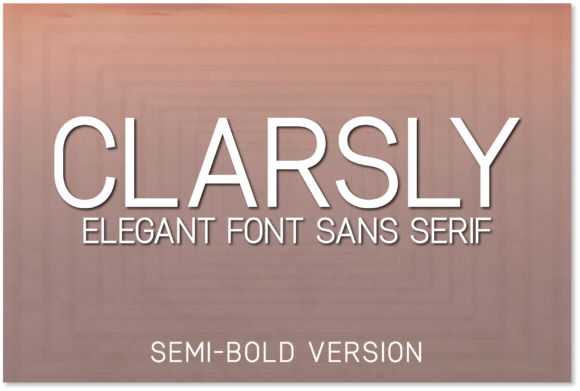
Discover the Timeless Touch of Clarsly Semi-Bold Font
As designers, we’ve all been there – staring at a blank canvas, trying to conjure up the perfect font to bring our vision to life. It’s that moment of pure creative bliss when everything falls into place, and the words start flowing. And that’s exactly what happened when we stumbled upon Clarsly Semi-Bold Font – a minimalist and modern sans serif font that effortlessly elevates any design.
Whether you’re working on a high-end branding project or a simple blog post, Clarsly Semi-Bold Font is the perfect addition to your design arsenal. Its versatility and elegance make it a go-to choice for body text, headlines, and everything in between. And the best part? It’s guaranteed to add a timeless touch to your next design, making it a valuable asset for any designer looking to elevate their work.
Clarsly Semi-Bold Font Features
- Font Family: Clarsly Semi-Bold, a sans-serif typeface designed for clear readability.
- Unique Characteristics: Clarsly Semi-Bold features a balanced mix of x-height, contrast, and letter spacing, resulting in improved readability and visual appeal.
Clarsly Semi-Bold Font Review
Overall, I think Clarsly Semi-Bold is a solid choice for a sans-serif font. Here are some things that work well: ✨
- It’s clean and modern, making it perfect for digital products and websites.
- The semi-bold weight is great for headings and titles, adding a touch of sophistication.
- The font is highly legible, even at smaller sizes, making it a great choice for body text.
- It’s fully supported by most operating systems and browsers, ensuring a consistent look across devices.
However, there are some limitations: ⚠️
- The font may not be as unique or distinctive as some other sans-serif fonts on the market.
- It may not be the best choice for more creative or artistic projects, where a more expressive font is needed.
- The font family is relatively small, so you may need to use a different font for smaller text sizes.
Overall, I’d give Clarsly Semi-Bold 4 out of 5 stars. It’s a reliable, clean, and modern font that’s perfect for most digital projects. While it may not be the most exciting or unique font, it gets the job done and looks great doing it.
Getting the Most Out of Clarsly Semi-Bold Font
Use Clarsly Semi-Bold Font to add a touch of sophistication to your designs. It’s perfect for:
Headings and titles
Body text in formal documents
Brand identities and logos
Remember to pair Clarsly Semi-Bold Font with a complementary font to create a visually appealing design.
Alternatives to Clarsly Semi-Bold Font
Lato Semi-Bold
Lato Semi-Bold is a modern sans-serif font that is highly legible and versatile. It’s ideal for use in digital products, such as websites, apps, and e-books. Lato Semi-Bold is more rounded and friendly compared to Clarsly Semi-Bold, making it suitable for content-heavy designs.
Comparison: Lato Semi-Bold has a slightly more rounded and friendly feel, whereas Clarsly Semi-Bold has a more geometric and modern look.
Montserrat Semi-Bold
Montserrat Semi-Bold is a strong and modern sans-serif font that is well-suited for use in urban and industrial settings. It’s ideal for use in logos, headings, and titles. Montserrat Semi-Bold is more condensed and geometric compared to Clarsly Semi-Bold, making it suitable for use in smaller spaces.
Comparison: Montserrat Semi-Bold has a more condensed and geometric feel, whereas Clarsly Semi-Bold has a more open and modern look.
Open Sans Semi-Bold
Open Sans Semi-Bold is a clean and highly legible sans-serif font that is ideal for use in digital products, such as websites, apps, and e-books. It’s also suitable for use in print materials, such as brochures and magazines. Open Sans Semi-Bold is more neutral and clean compared to Clarsly Semi-Bold, making it suitable for use in a wide range of designs.
The recommended font size for body text using Clarsly Semi-Bold Font is between 10-14 points for digital materials and 12-18 points for print materials. This will provide a clear and readable text, while also maintaining a balanced design.